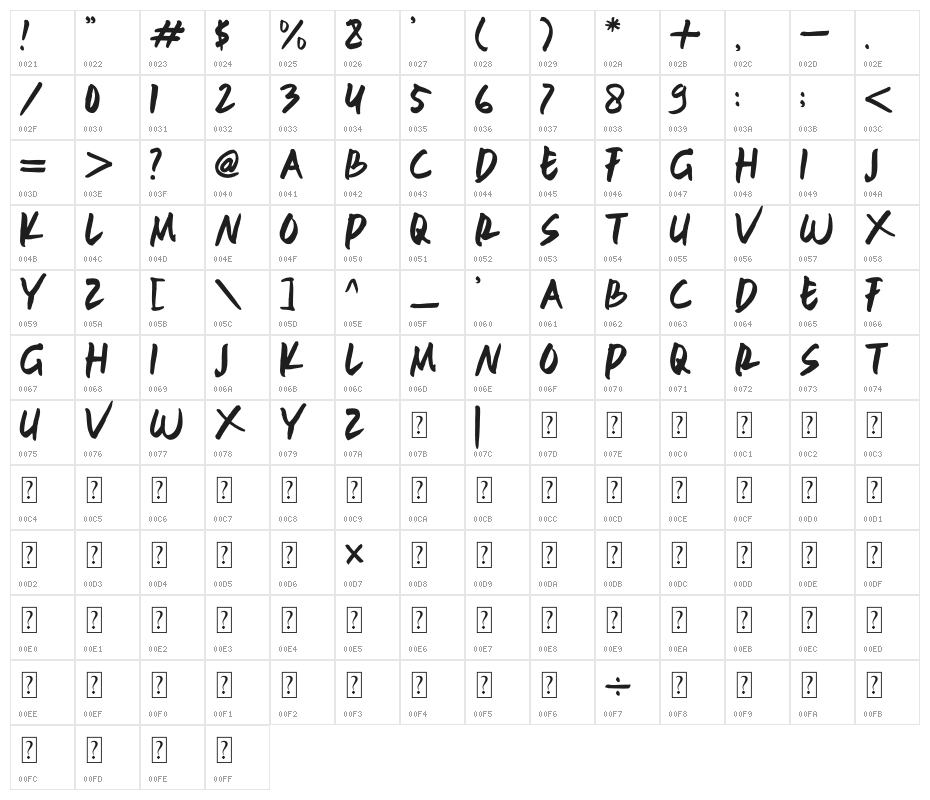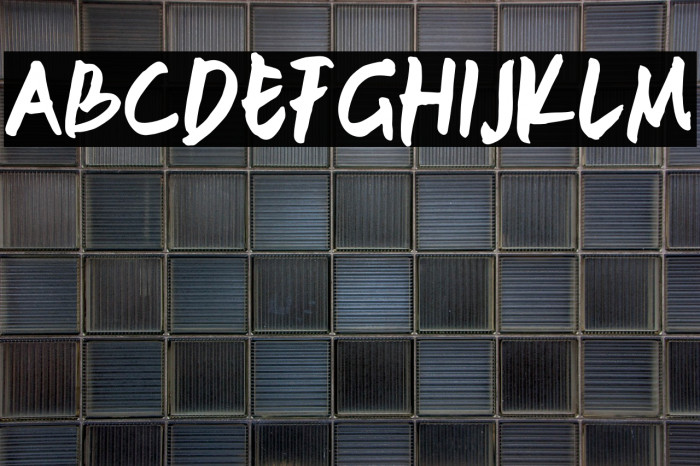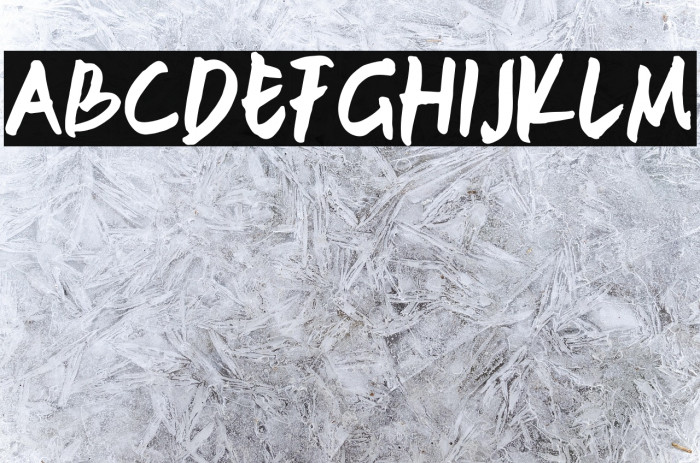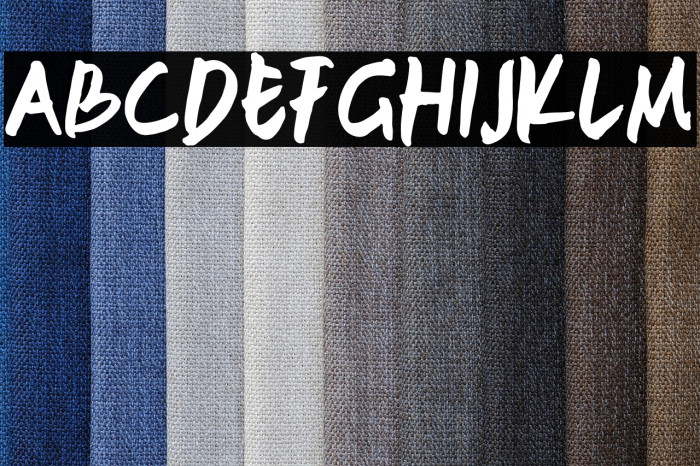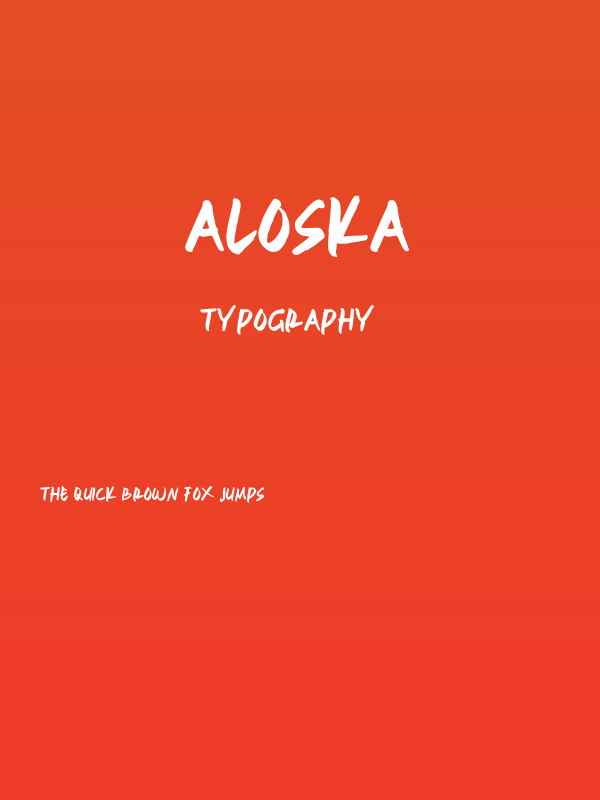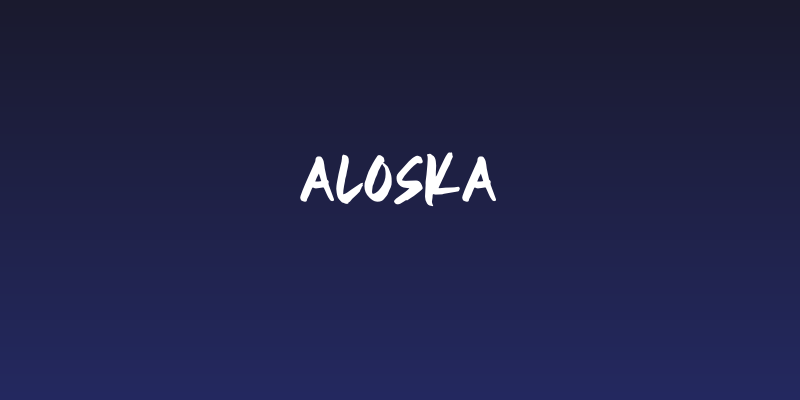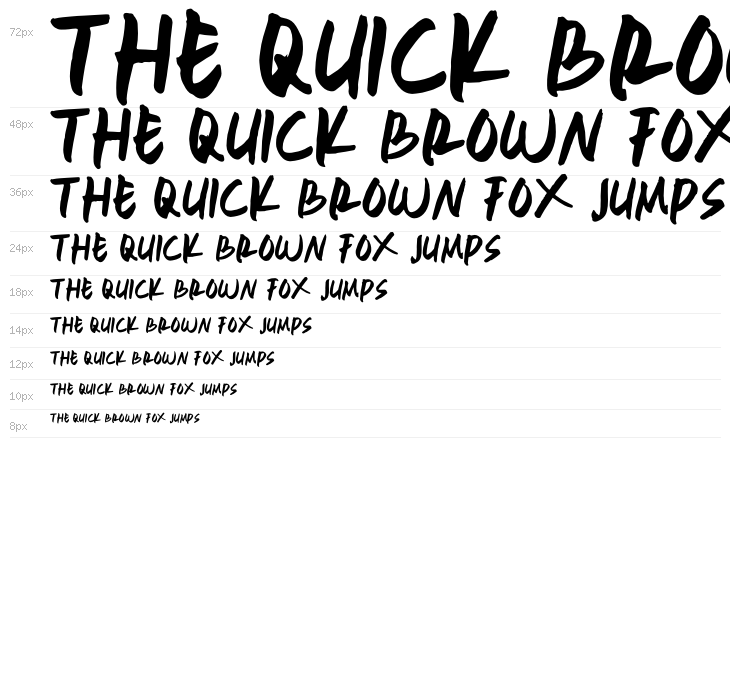
ALOSKA Font
ALOSKA Description
This font features a bold and expressive handwritten style, characterized by its dynamic and energetic strokes. The letters are slightly slanted, giving a sense of movement and fluidity. The uppercase and lowercase characters maintain a consistent style, with rounded edges and varying stroke widths that add to its casual and friendly appearance. The numerals and special characters are equally bold, ensuring readability and visual impact. This font is ideal for projects that require a personal touch or a creative flair.
| Overall Style | Casual and Creative |
| Proposed Projects | Ideal for greeting cards, posters, branding, and social media graphics. |